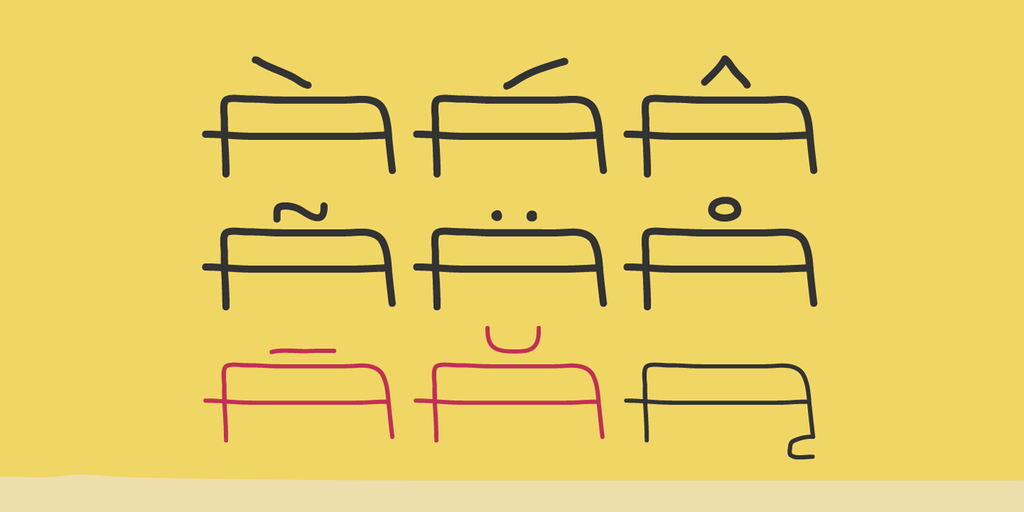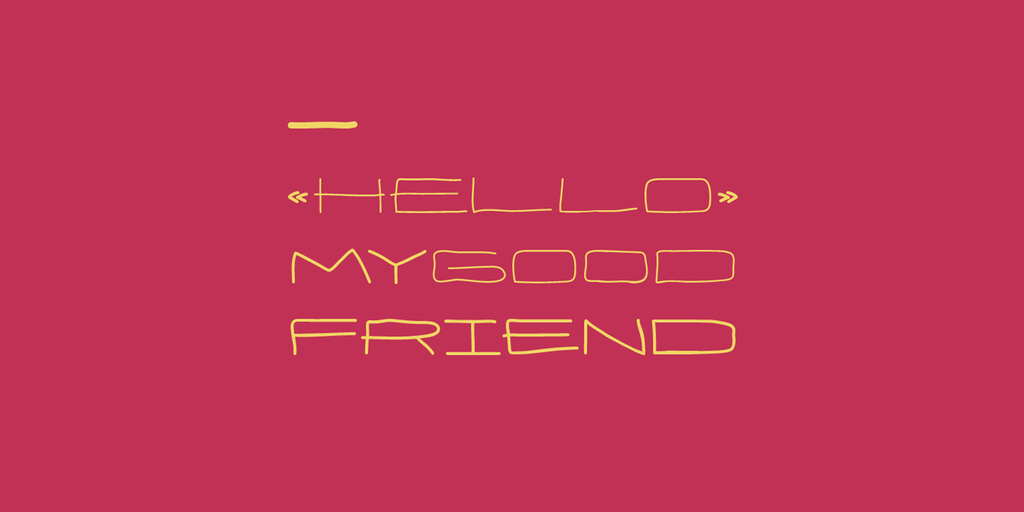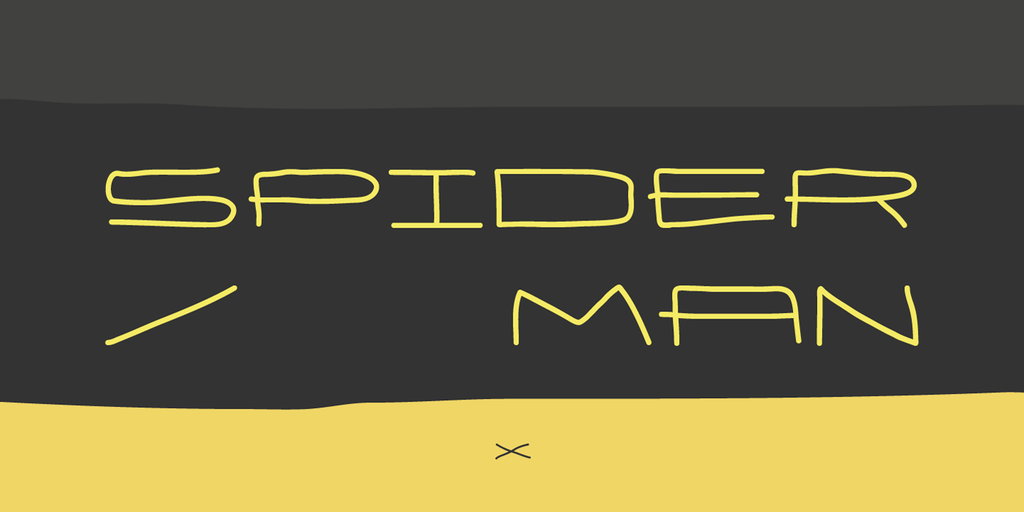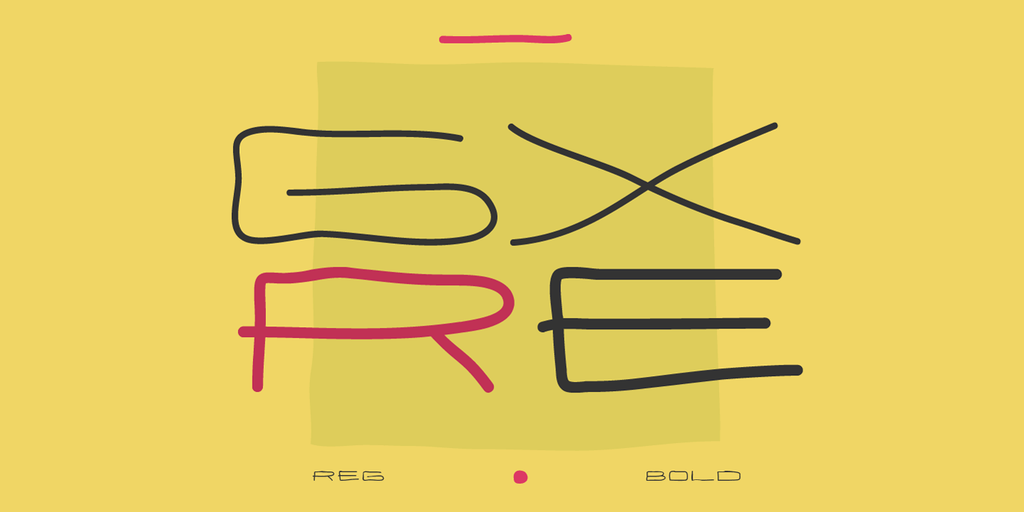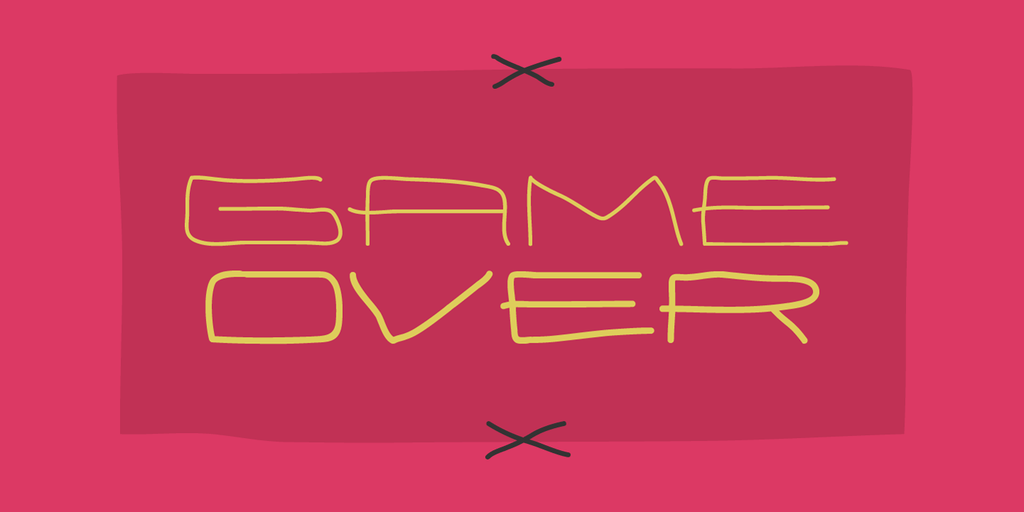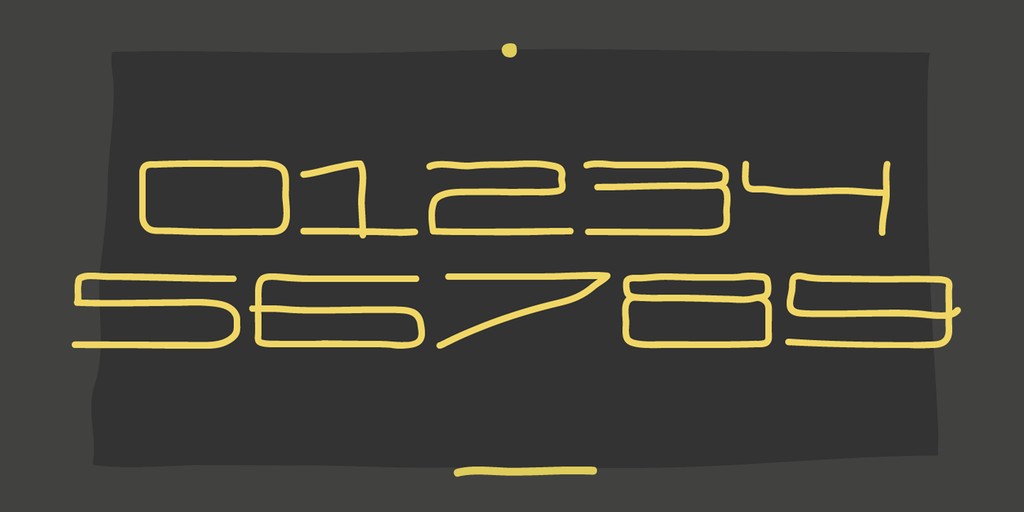
Eneas Expanded
Font Family by Antipixel Type Studio
Eneas Expanded is a decorative artistic poster handwritten font. It's an sans serif, wide, rounded monoline font which will provide an informal, funny and fancy look to your work. It's recommended for display usage for its glyph quality.